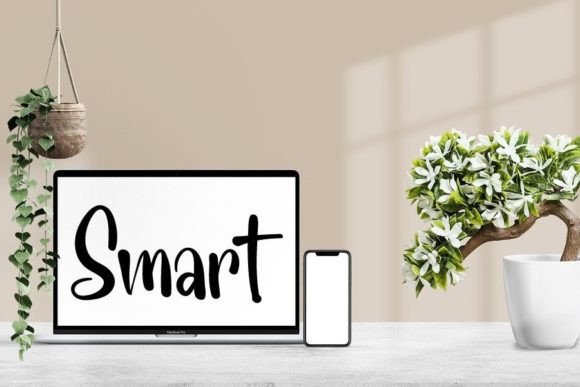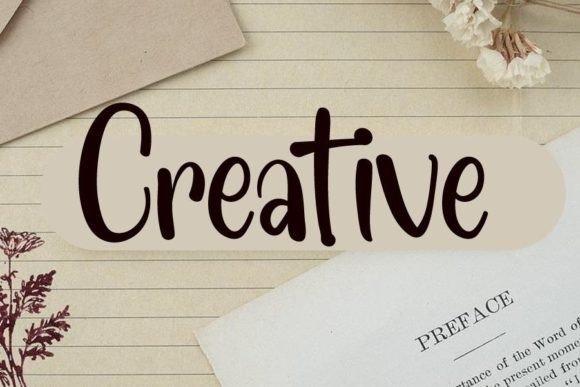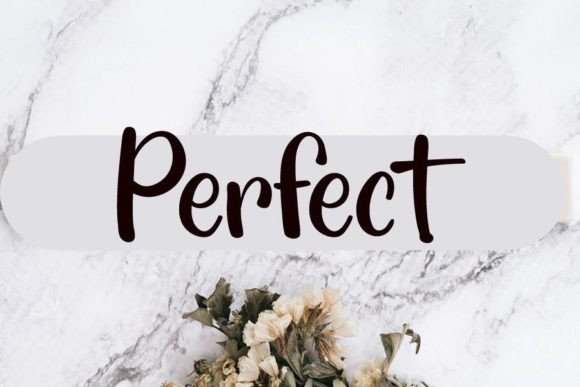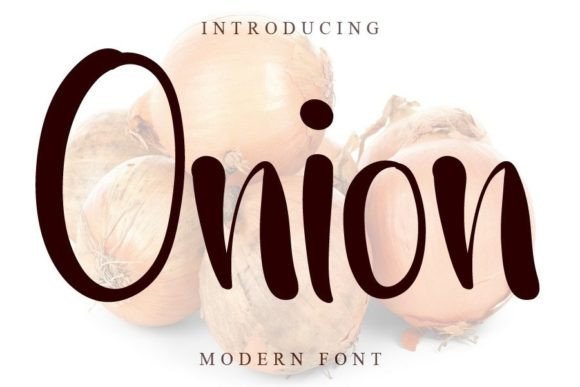
Introduction to Onion Font
Onion This font is a fresh and beautiful font, good for your design purposes such as Youtube banners, Cover Logo Mockups, Wedding Invitations, Id Cards, Flayer, Crafts.
By using this font your business will progress and develop Apart from that this font is simple and unique.
Key Features of Onion Font
Why Choose Onion Font?
Onion Font offers exceptional quality and versatility, making it a valuable addition to your design toolkit. Whether you’re creating for personal projects or commercial use, Onion Font delivers professional results.